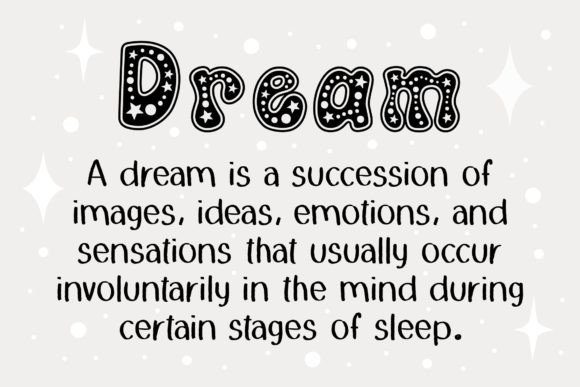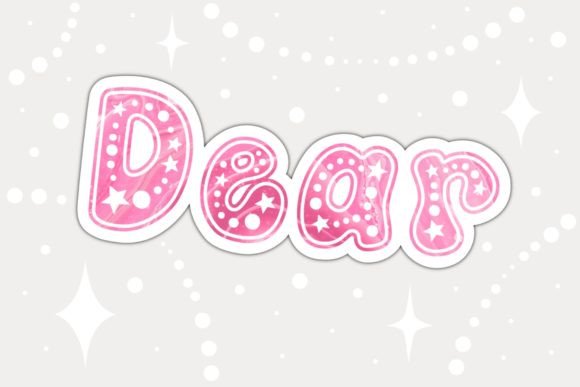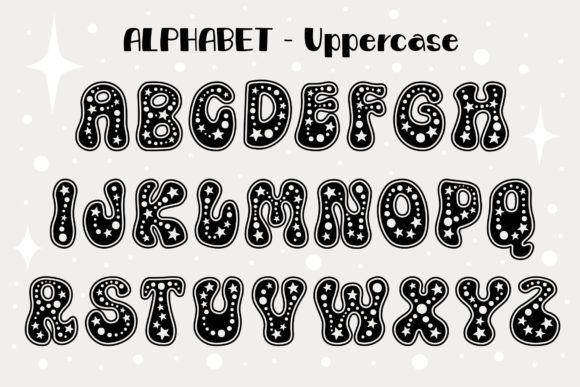
Magic Dream Font
Magic Dream is a playful font. This font is the perfect fit for all of your t-shirt, logos, branding, social media, crafty DIY projects, and much more!